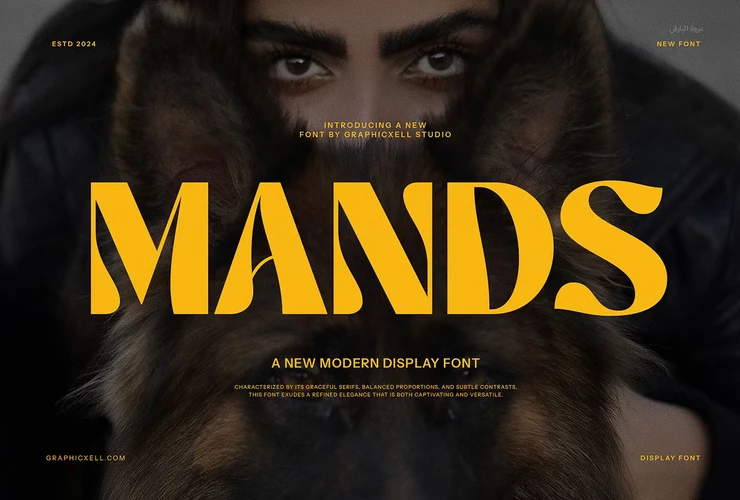
Elevate Your Designs with Mands Unique Serif Font
Mands Typeface is a modern serif font that embodies both sophistication and charm. Crafted by Graphicxell, this typeface is designed to add a fashionable and elegant touch to your projects, making it a must-have for designers seeking to create visually stunning and contemporary works.
Why Mands Typeface is a Game-Changer for Designers
1. Elegant and Sophisticated Design Mands Typeface stands out with its delicate curves and classy ligatures, offering a blend of elegance and modernity. The smooth strokes and balanced line thickness contribute to its sophisticated appearance, making it ideal for high-end design projects.
2. Versatile for Various Creative Projects Whether you’re working on beauty designs, branding, elegant crafting, or layout designs, Mands Typeface brings a unique flair that enhances the visual appeal of your work. Its calligraphic influences add a contemporary twist, ensuring that your designs are both stylish and timeless.
4. Smooth Strokes for a Polished Look One of the defining features of Mands Typeface is its smooth strokes, which give your designs a polished and refined look. The line thickness is meticulously crafted to balance elegance with readability, making this font a pleasure to work with in any design context.
Mands Unique Serif Font by Graphicxell is the perfect choice for designers who want to infuse their projects with a blend of modern elegance and sophistication. With its delicate curves, smooth strokes, and versatile design, Mands Typeface is poised to become a staple in your font collection. Whether for branding, layout designs, or elegant crafting, this font helps you create beautiful, polished, and contemporary works that stand out.